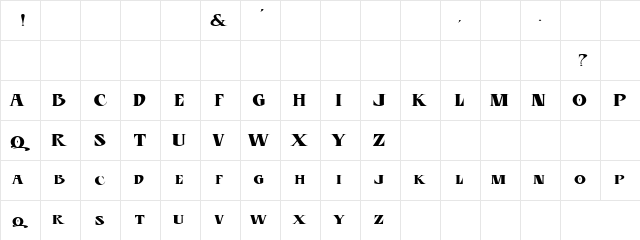
LHF Esoteric Old | Regular Regular
Design Context for LHF Esoteric Old | Regular Typeface
LHF Esoteric Old | Regular is a composed and adaptable typeface that performs quietly and consistently across a wide range of design contexts.